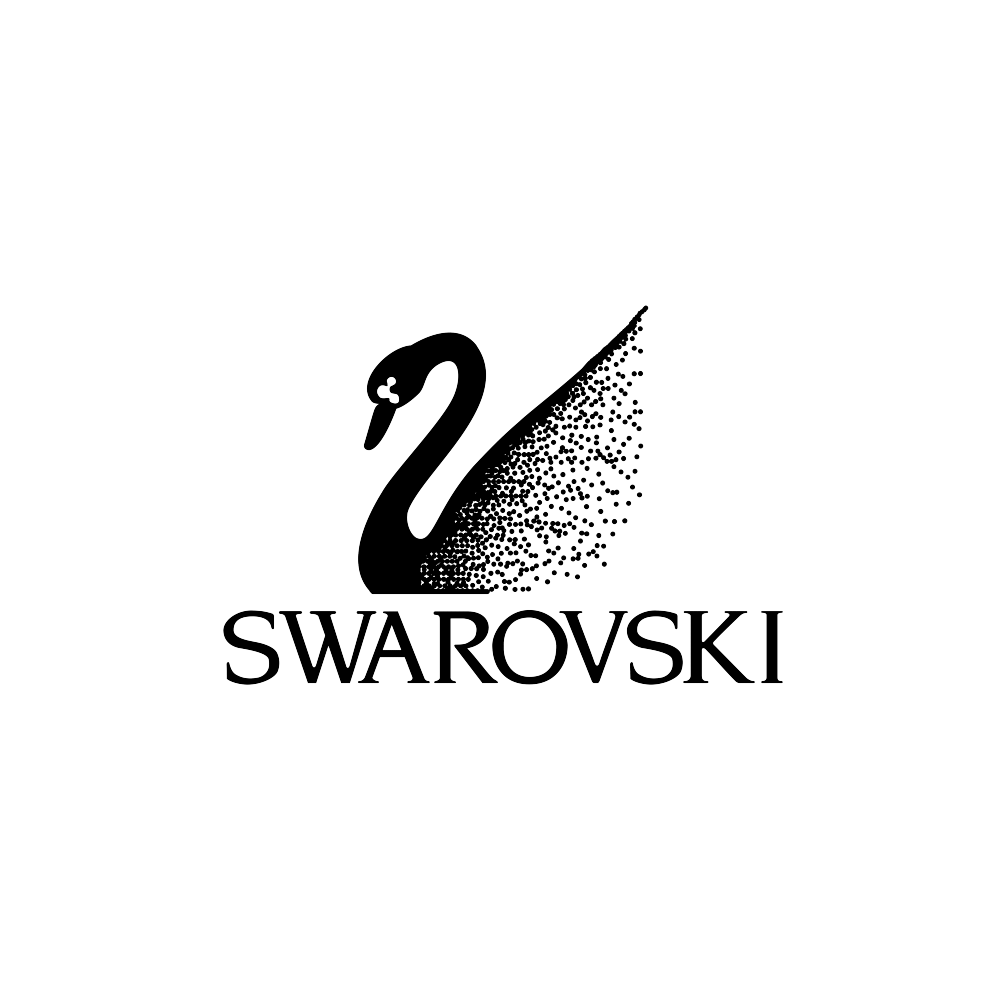
Swarovski Font
ApparelSwarovski is a luxury crystal and jewelry brand founded in 1895 by Daniel Swarovski in Austria. The company is known for its high-quality, sparkling crystal products, including jewelry, home decor, figurines, and accessories.
A swan with its logotype is displayed in the Swarovski logo. The logotype was created using a font that resembles Novarese Medium by Aldo Novarese. It is a commercial typeface and you can view more details about it here.